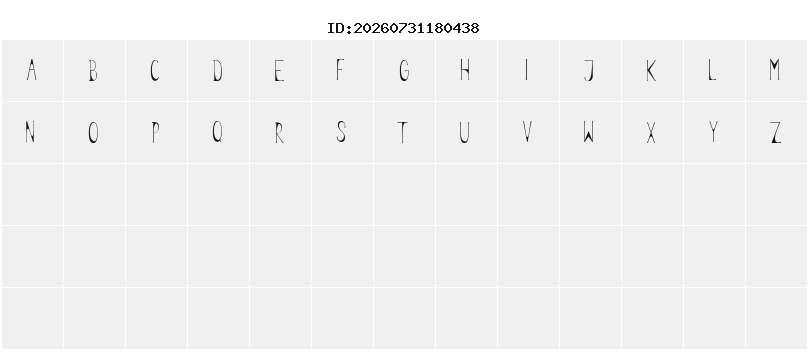
• Font Name: Legume
About Legume.ttf
Legume.ttf is a modern, elegant sans-serif font designed for ultimate readability and visual harmony. Perfect for branding, headlines, web design, and print materials.